Typography is more than just letters on a screen – it’s the voice and personality of your project. Whether you’re crafting attention-grabbing headlines, playful social media posts, edgy branding materials, or eye-catching merchandise, the right cool font can set the perfect tone. With Creative Fabrica’s Cool Fonts Generator, you can design fonts that match your creative energy – bold, quirky, futuristic, retro, or anything in between – all with a few clicks.
Combining the speed of AI with the creative freedom of custom font design, this innovative tool empowers everyone – from pro designers to total beginners – to create one-of-a-kind cool fonts without the need for expensive software or years of typography experience. Let’s explore how the Cool Fonts Generator works, why it matters, and how it’s redefining creative typography.
What Makes a Font Cool? Defining Your Style
What’s considered “cool” is subjective, but the best cool fonts tend to have a few things in common: they’re distinctive, visually engaging, and often break away from conventional typography rules. They might feature bold shapes, futuristic edges, retro vibes, playful curves, or graffiti-inspired strokes – anything that grabs attention and communicates personality.
The beauty of Creative Fabrica’s Cool Fonts Generator is that it gives you total freedom to define what “cool” means for your project. Whether you want something minimalist and modern, cartoonish and fun, or grungy and rebellious, the generator helps you explore every possible style and find the perfect match for your vibe.
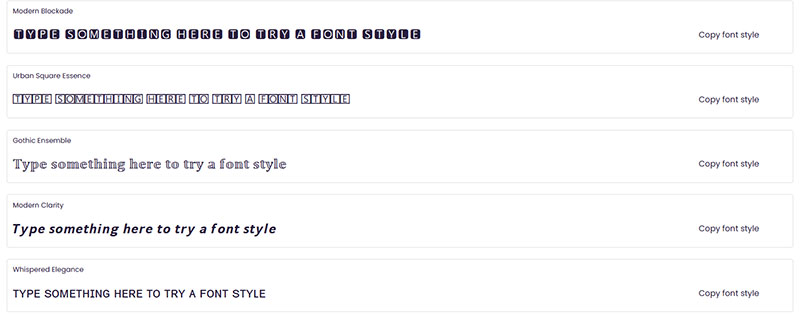
How AI Unlocks Endless Creative Possibilities
Designing unique fonts used to be an intensive process – sketching, vectorizing, and adjusting each glyph manually. AI-powered tools like Creative Fabrica’s Cool Fonts Generator completely transform this process. By analyzing thousands of existing font styles, design trends, and cultural influences, the AI can instantly generate brand-new cool fonts that match your personal aesthetic.
You start by choosing a broad style direction – bold, playful, edgy, futuristic – and then let the generator do the work. The AI blends your input with design trends to create fonts that feel both on-trend and uniquely yours, cutting down the time it would take to build from scratch.
Collaboration Between AI and Your Imagination
Cool fonts are only as good as the creative ideas behind them. That’s why Creative Fabrica’s generator isn’t just an automated tool – it’s a creative partner. You can guide the process, tweaking letters, adjusting spacing, or adding flourishes until every glyph reflects your exact vision.
The tool’s character-by-character editing features let you fine-tune each letter, ensuring that no matter how wild or experimental your style, the font is still legible and polished. This seamless collaboration between AI efficiency and human creativity produces fonts that are both personal and professional – perfect for personal brands, influencer content, YouTube banners, or custom merchandise.
Fonts That Fit Every Platform
Cool fonts shouldn’t be limited to one format or platform. Whether you’re creating graphics for Instagram, YouTube thumbnails, Twitch overlays, or even print designs, Creative Fabrica’s Cool Fonts Generator ensures that your fonts are fully compatible across all platforms.
Speed and Style Combined
Cool fonts often come from spontaneous inspiration – a sudden idea for a YouTube logo, a fun twist on your Instagram bio, or a catchy phrase for a streetwear design. Waiting days or weeks for a custom typeface doesn’t fit that creative flow.
That’s why the Cool Fonts Generator works in real time, allowing you to:
- Instantly generate multiple versions of your text in different cool styles.
- Try variations until you find the perfect fit.
- Fine-tune character spacing, height, and flair until your font is exactly right.
This immediacy empowers creators to follow inspiration when it strikes, keeping the creative process smooth, fun, and dynamic.
No Design Skills? No Problem
Traditionally, creating your own font required specialized software, professional training, and a lot of patience. Creative Fabrica’s Cool Fonts Generator breaks down those barriers. Whether you’re a graphic designer, small business owner, influencer, or hobbyist, you can design your own cool fonts without any prior experience.
The tool’s easy-to-use interface walks you through the process – just enter your text, pick a style, and instantly preview your custom font. With real-time feedback, you can adjust and tweak until it’s perfect, all without opening a single design app.
Affordable Creativity for Everyone
Custom fonts used to be luxuries reserved for big brands with big budgets. Now, Creative Fabrica’s Cool Fonts Generator makes personalized typography accessible to everyone. Whether you’re making graphics for social media, merch, events, or personal projects, you can generate professional-quality cool fonts without expensive fees or subscriptions.
With a free Creative Fabrica account, users can start experimenting with cool fonts immediately – making unique, attention-grabbing typography available to creators of all levels.
The Future of Typography Is Personal and Cool
As visual content dominates online spaces, typography has become a core part of personal branding. From profile names to custom logos, creators need fonts that stand out, reflect their personality, and fit their aesthetic.
Creative Fabrica’s Cool Fonts Generator isn’t just about fonts – it’s about empowering creative self-expression. Whether you’re a streamer building your Twitch brand, a musician designing album art, or a small business creating a viral marketing campaign, custom fonts let you define your voice in a crowded digital world.